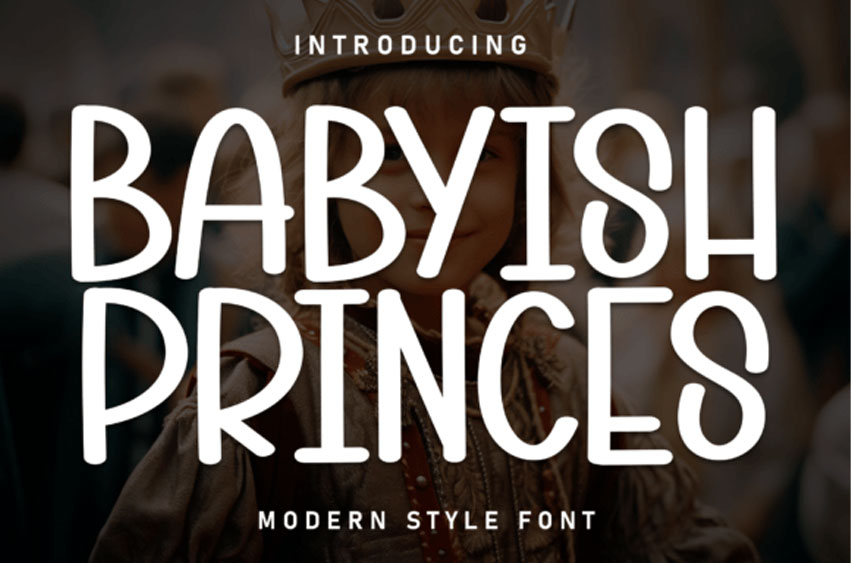
Babyish Princes Font Unlock the charm of your design projects with our whimsical handwritten typeface, perfect for imparting a feeling of warmth and friendliness. Effortlessly adorable, this display font enhances the expressive potential of your wedding invitations, greeting cards, or any design endeavor seeking a sprightly spin.
Introduce a joyful jolt into your creative repertoire, as our font sprinkles its playful allure, making your messages resonate with an engaging, personal touch.